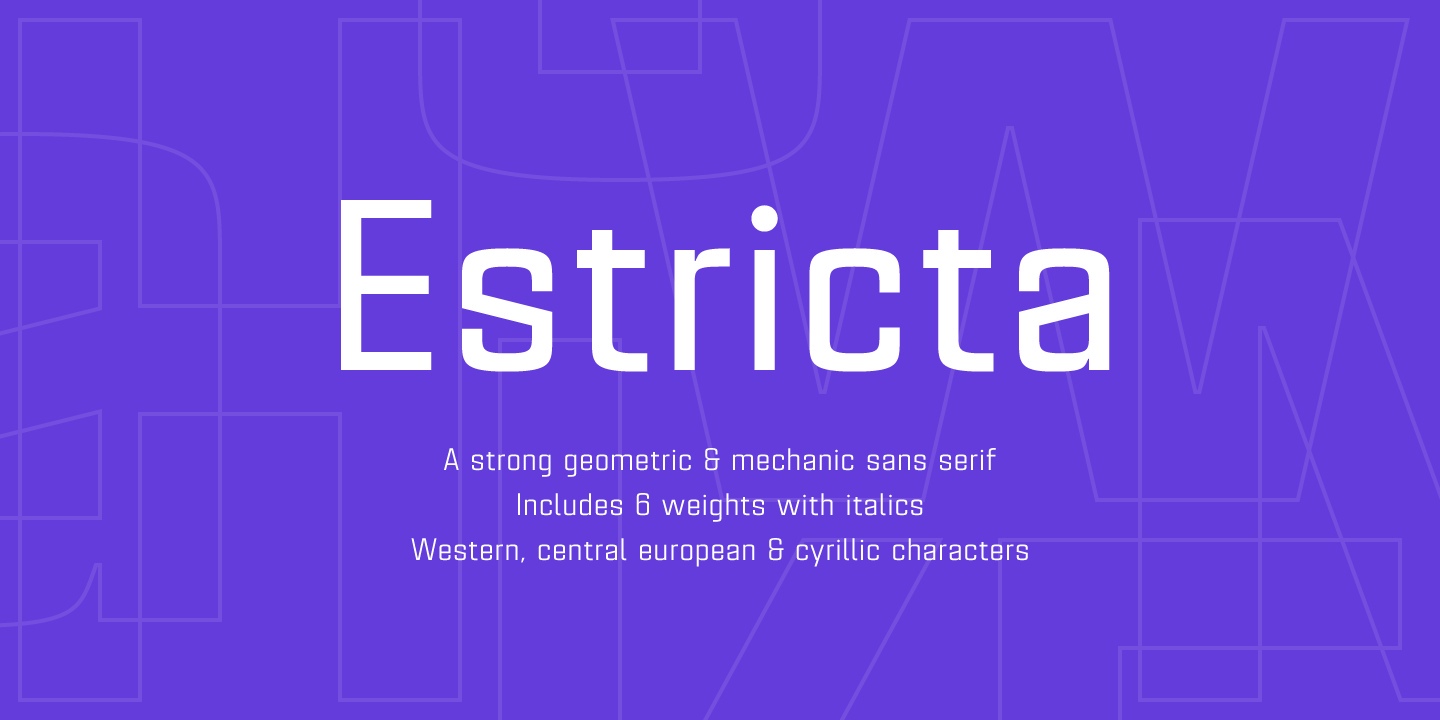
Estricta Font
Estricta Font is perfect for law enforcement agencies, strict regulatory organizations, disciplined military communications, rigorous quality control companies, precise engineering firms, and uncompromising professional services. Its authoritative character makes it ideal for compliance consulting services, strict security companies, disciplined training academies, rigorous certification programs, precise manufacturing standards, and any project requiring unwavering discipline with strict authority and uncompromising excellence appeal.
This font is exciting because it embodies the power of strict standards and unwavering discipline while delivering exceptional functionality for organizations that demand precision, compliance, and the highest levels of professional rigor. The rigorously crafted letterforms reflect the systematic approach and uncompromising standards required in regulated industries, creating typography that commands respect and inspires confidence in audiences who value discipline and precision.
The Estricta Font family typically includes Light, Regular, Medium, and Bold weights with disciplined alternates, strict ligatures, and authoritative elements that enhance its rigorous personality. This comprehensive collection enables regulatory professionals to create authoritative brand systems that maintain compliance credibility while offering flexibility for various strict applications requiring both disciplinary authority and contemporary professional positioning.
Whether you're developing identity systems for regulatory organizations, creating materials for compliance training programs, or designing communications for disciplined professional services, Estricta Font Free Download delivers the strict authority and disciplinary appeal that resonates with audiences seeking uncompromising standards and rigorous excellence. Its commanding presence ensures trusted brand recognition across digital platforms and print materials, making it perfect for websites, mobile applications, and regulatory campaigns that celebrate disciplinary excellence, strict standards, and the transformative power of unwavering professional rigor with contemporary authority and authentic disciplinary integrity.